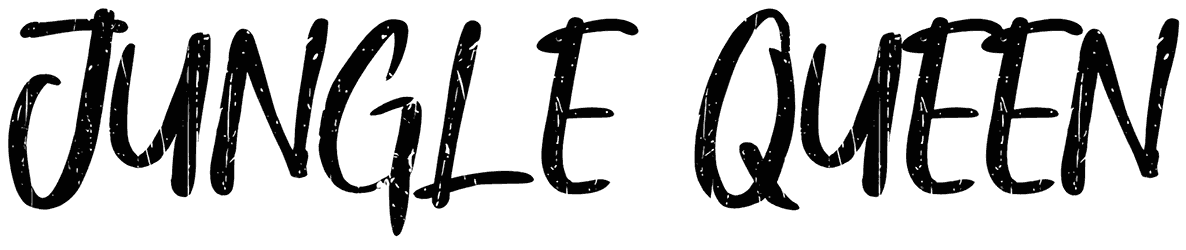
Jungle Queen Font
The brush left on the paper makes Jungle Queen so enjoyable to look at. The bold feeling of this jungle font is for designers who want to attract all audiences by creating a nostalgic and organic feeling and ensuring that their writings are read.
By having this script font in your collection, you can quickly get an opportunity to be seen on posters, boxes, and clothes, and in this way, you will not need any lowercase letters or numbers.